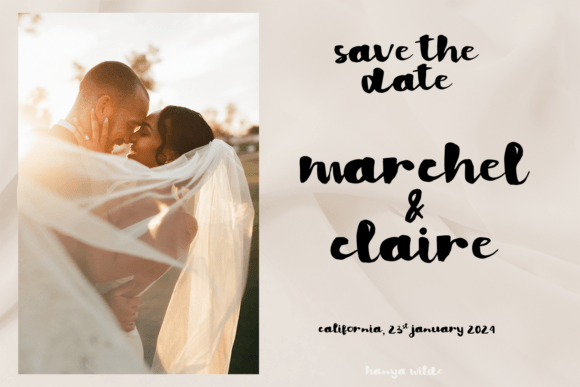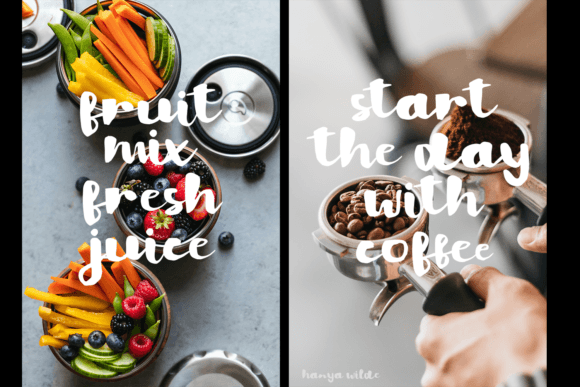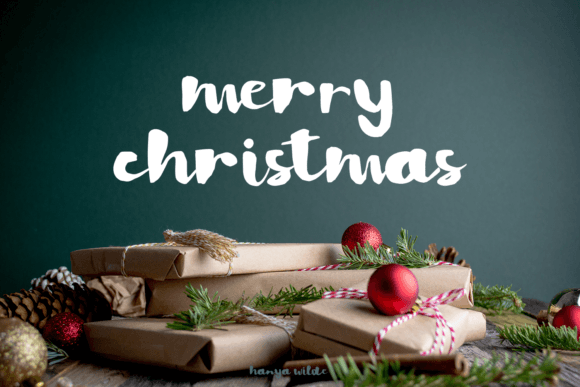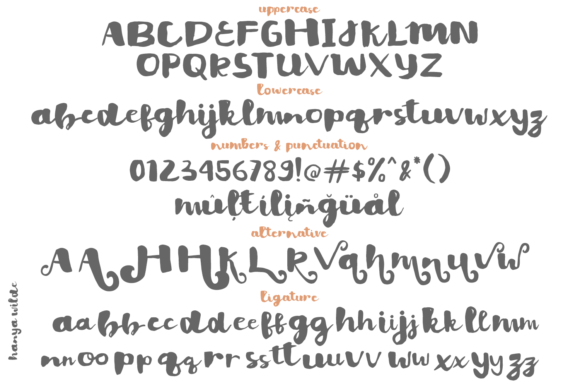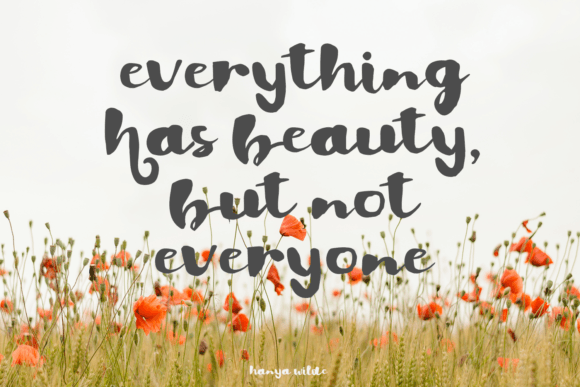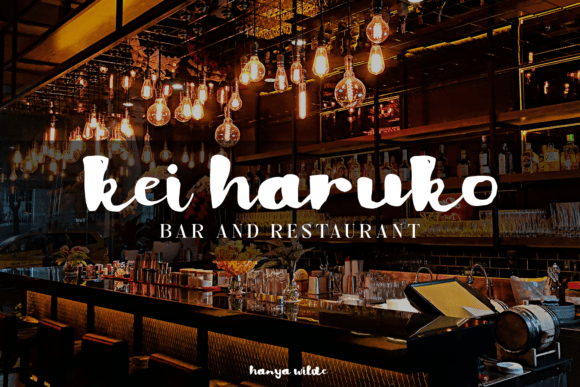
Hanya Wilde Font: A Charming Handwritten Brush Script
Are you looking for a font that can add a touch of elegance and sophistication to your projects? Look no further than the Hanya Wilde font. This beautiful handwritten brush script is designed to charm your audience and convey your message with style. In this article, we’ll take a closer look at the Hanya Wilde font and explore its features, uses, and benefits.
What is Hanya Wilde Font?
Hanya Wilde is a handwritten brush script font that is perfect for a variety of design projects. It features beautiful, flowing strokes and a charming, personal touch that makes it ideal for use in quotes, packaging, and more. The font is designed to be versatile and can be used for both personal and commercial projects.
Features of Hanya Wilde Font
The Hanya Wilde font has several features that make it a great choice for designers and crafters. Some of its key features include:
- Handwritten brush script: The font features beautiful, handwritten strokes that give it a personal and charming touch.
- Versatile: The font is suitable for a variety of design projects, including quotes, packaging, and more.
- Elegant and sophisticated: The font has an elegant and sophisticated feel that makes it perfect for projects that require a touch of luxury.
- Easy to read: The font is clear and easy to read, making it perfect for use in body text and headlines.
Uses of Hanya Wilde Font
The Hanya Wilde font can be used for a variety of design projects, including:
- Quotes and posters: The font is perfect for creating inspirational quotes and posters that require a touch of elegance and sophistication.
- Packaging design: The font can be used to create beautiful and eye-catching packaging designs that stand out on store shelves.
- Branding and advertising: The font can be used to create branded materials, such as business cards, brochures, and advertisements.
- Crafting and DIY projects: The font is also perfect for crafters and DIY enthusiasts who want to add a personal touch to their projects.
Benefits of Using Hanya Wilde Font
There are several benefits to using the Hanya Wilde font in your design projects. Some of the benefits include:
- Unique and eye-catching: The font is unique and eye-catching, making it perfect for projects that require a touch of elegance and sophistication.
- Versatile: The font is versatile and can be used for a variety of design projects.
- High-quality: The font is high-quality and features beautiful, flowing strokes that make it perfect for use in professional design projects.
Tips for Using Hanya Wilde Font
Here are a few tips for using the Hanya Wilde font in your design projects:
- Use it sparingly: The font is elegant and sophisticated, so use it sparingly to avoid overwhelming your design.
- Pair it with other fonts: The font can be paired with other fonts to create a unique and eye-catching design.
- Experiment with different colors: The font can be used with a variety of colors to create a design that stands out.
The Hanya Wilde font is a beautiful handwritten brush script that is perfect for designers and crafters who want to add a touch of elegance and sophistication to their projects. With its versatile design, easy-to-use features, and high-quality strokes, this font is sure to charm your audience and convey your message with style. Whether you’re creating quotes, packaging, or branding materials, the Hanya Wilde font is a great choice.